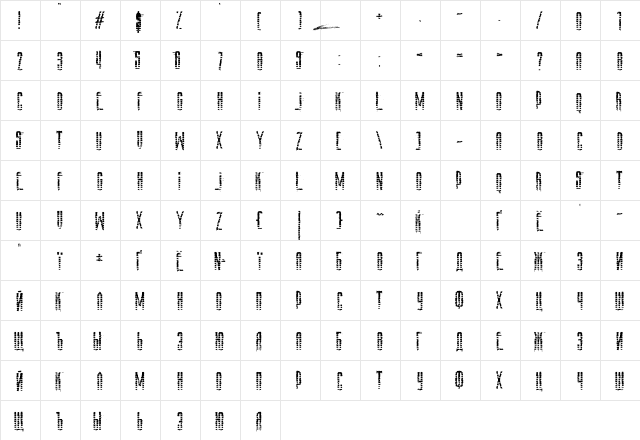
AmazS.T.A.L.K.E.R.v.2.0 Regular Font Preview
AmazS.T.A.L.K.E.R.v.2.0 Regular
AmazS.T.A.L.K.E.R.v.2.0 Regular Font Details
Design Context for AmazS.T.A.L.K.E.R.v.2.0 Typeface
AmazS.T.A.L.K.E.R.v.2.0 is a composed and adaptable typeface that performs quietly and consistently across a wide range of design contexts.